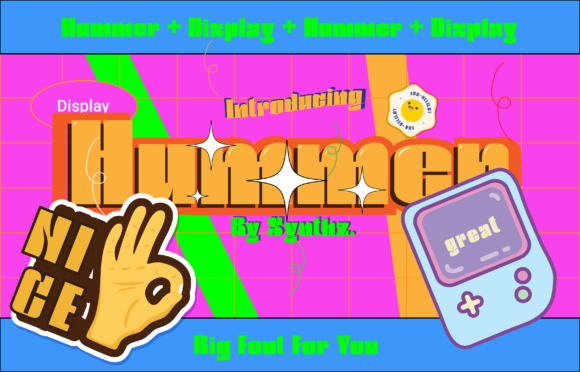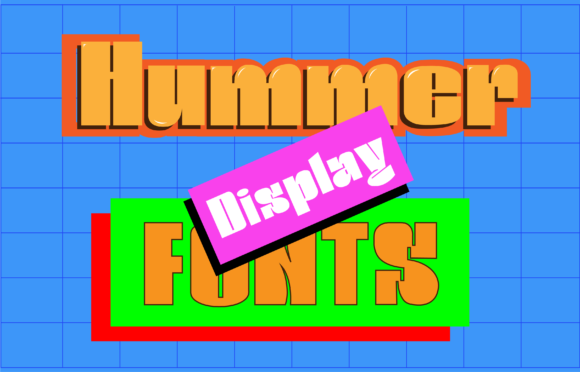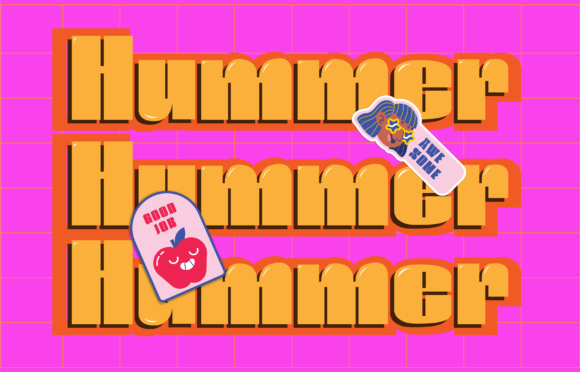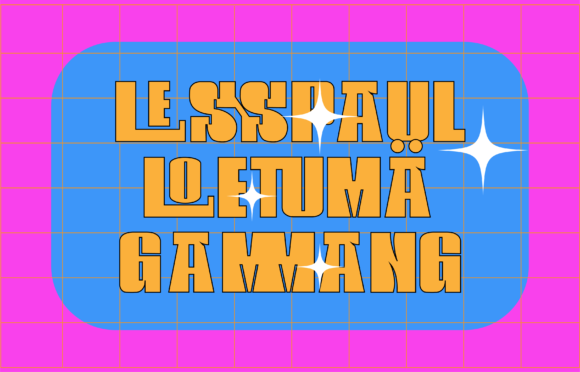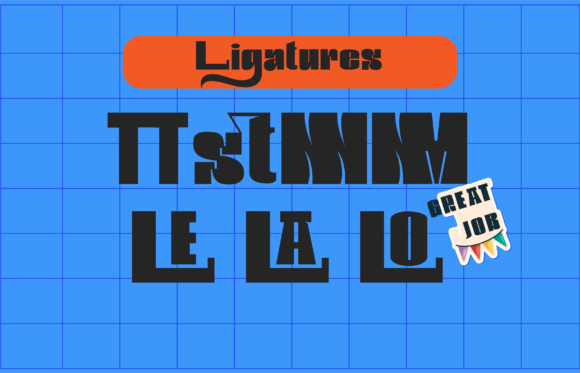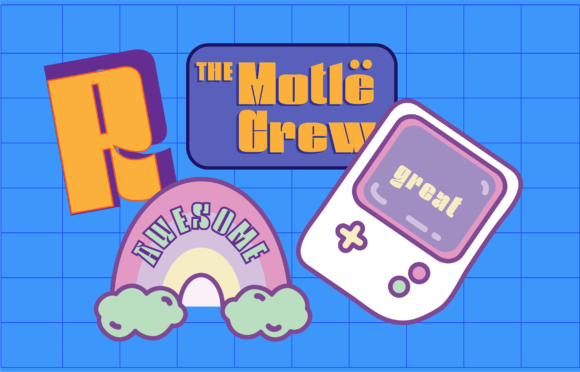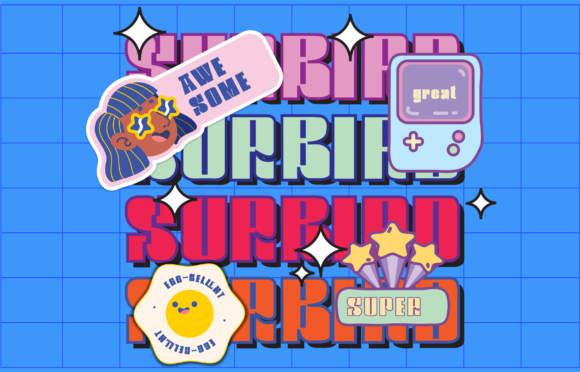
The Perfect Ride for Your Next Design Project
Remember the feeling of excitement when you first picked up a crayon as a child and brought your imagination to life? That sense of creativity and freedom is exactly what the Hummer Font embodies. This cool and bubbly display font is designed to bring a touch of playfulness and authenticity to any project, making it a perfect choice for kids’ activities and school projects.
As a designer, you’re always on the lookout for the perfect font to convey your message and capture your audience’s attention. The Hummer Font is a valuable addition to your design toolkit, offering a unique and eye-catching way to add some personality to your work. Whether you’re creating a logo, poster, or social media graphic, the Hummer Font is sure to get your message noticed.
Hummer Font Key Features
- Font Family: Hummer is a sans-serif font family designed for use in digital media, including web, mobile apps, and video games.
- Character Set: The Hummer font family includes a comprehensive set of characters, including Latin, Cyrillic, and Greek alphabets, as well as a range of punctuation and symbol glyphs.
- Unique Characteristics: Hummer font family is known for its bold, futuristic design, with a distinctive “humming” effect created by the font’s unique letterforms and spacing.
Hummer Font Review
Overall, the Hummer font is a unique and eye-catching choice for designers. ✨ Its bold and rugged aesthetic makes it perfect for creating a tough, adventurous vibe. The font’s versatility allows it to work well in a variety of contexts, from outdoor gear websites to automotive brands.
One of the standout features of the Hummer font is its customizable weight. This allows designers to adjust the font’s thickness to suit their needs, creating a range of different looks and feels. ✨ The font also comes in a range of language support, making it accessible to designers working with global teams.
However, there are some limitations to consider: ⚠️ The font may not be suitable for all types of projects, particularly those that require a more refined or elegant look. Additionally, the font’s bold aesthetic can be overwhelming if not used carefully.
- Customizable weight
- Range of language support
- Bold and rugged aesthetic
- Perfect for outdoor and automotive brands
Overall, I would recommend the Hummer font to designers who want to create a bold and adventurous vibe. With careful use and consideration, it can be a powerful tool in any designer’s toolkit.
Getting the Most Out of the Hummer Font
Use the Hummer Font to add a bold, distressed touch to your designs. Pair it with bold colors and geometric shapes for a striking visual effect.
Experiment with different font sizes and combinations to create a unique look.
The Hummer Font is ideal for:
1. Distressed or grungy designs.
2. Retro or vintage-inspired designs.
3. Bold and eye-catching headlines.
Alternatives to Hummer Font
1. Impact Font
The Impact font is a sans-serif font known for its bold and dramatic appearance. It is often used in titles, headings, and other display text where a strong, attention-grabbing effect is desired. Compared to Hummer Font, Impact is more geometric and has a more aggressive feel, making it better suited for titles and headings in action-packed or energetic contexts.
Q: Can I customize the Hummer Font to fit my specific design needs?
Yes, the Hummer Font is a highly customizable font. It includes a wide range of OpenType features, including ligatures, swashes, and stylistic sets. You can also use font editing software, such as FontLab or FontForge, to customize the font to fit your specific design needs.